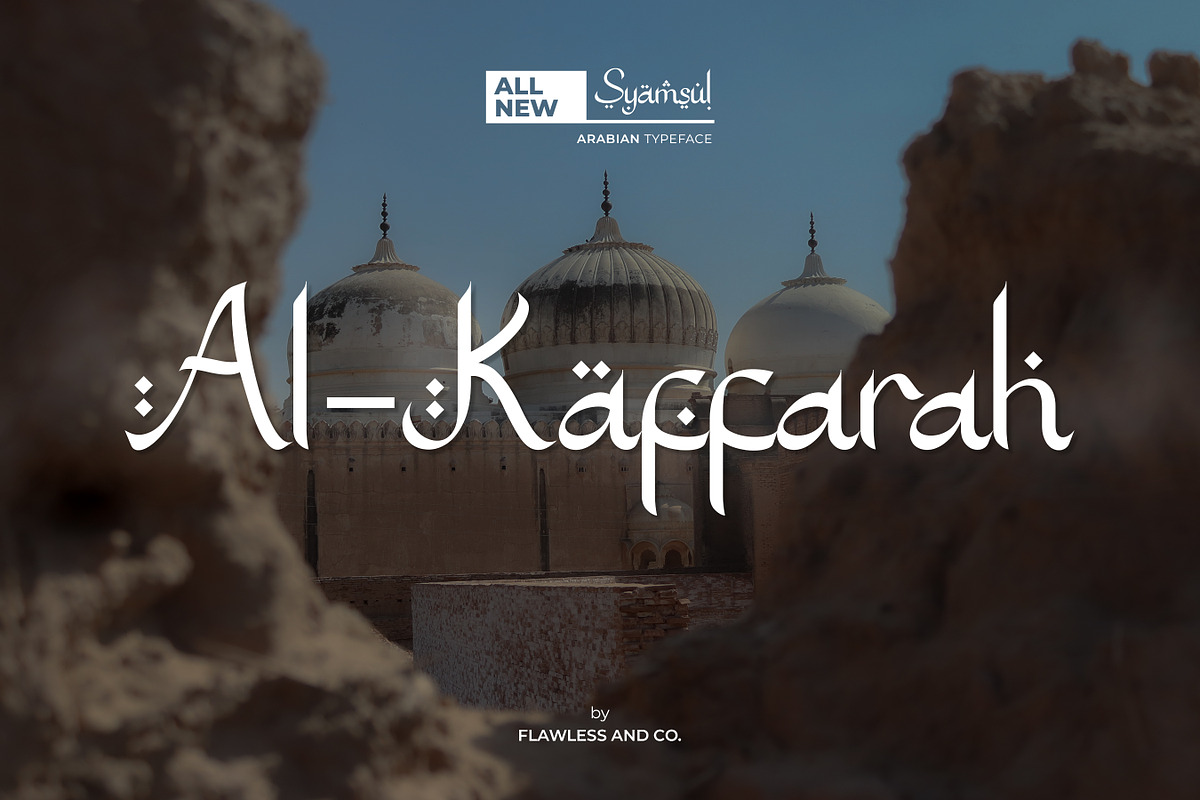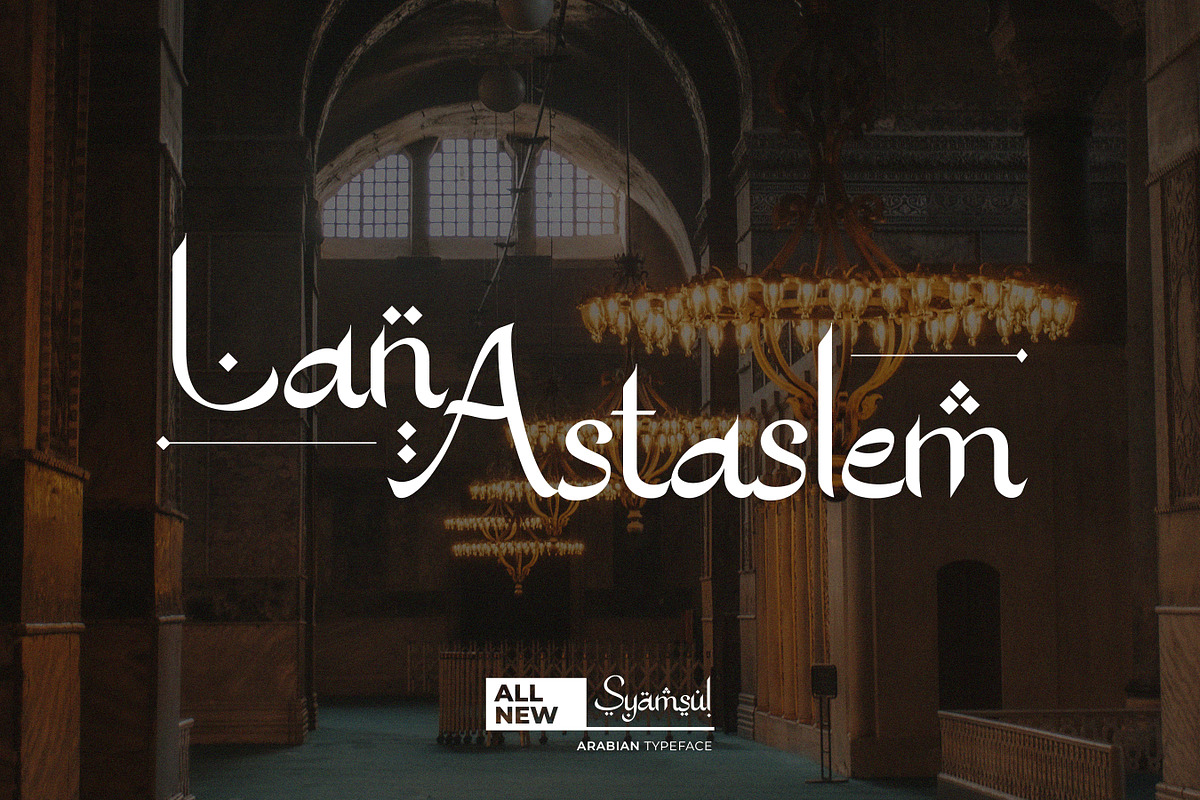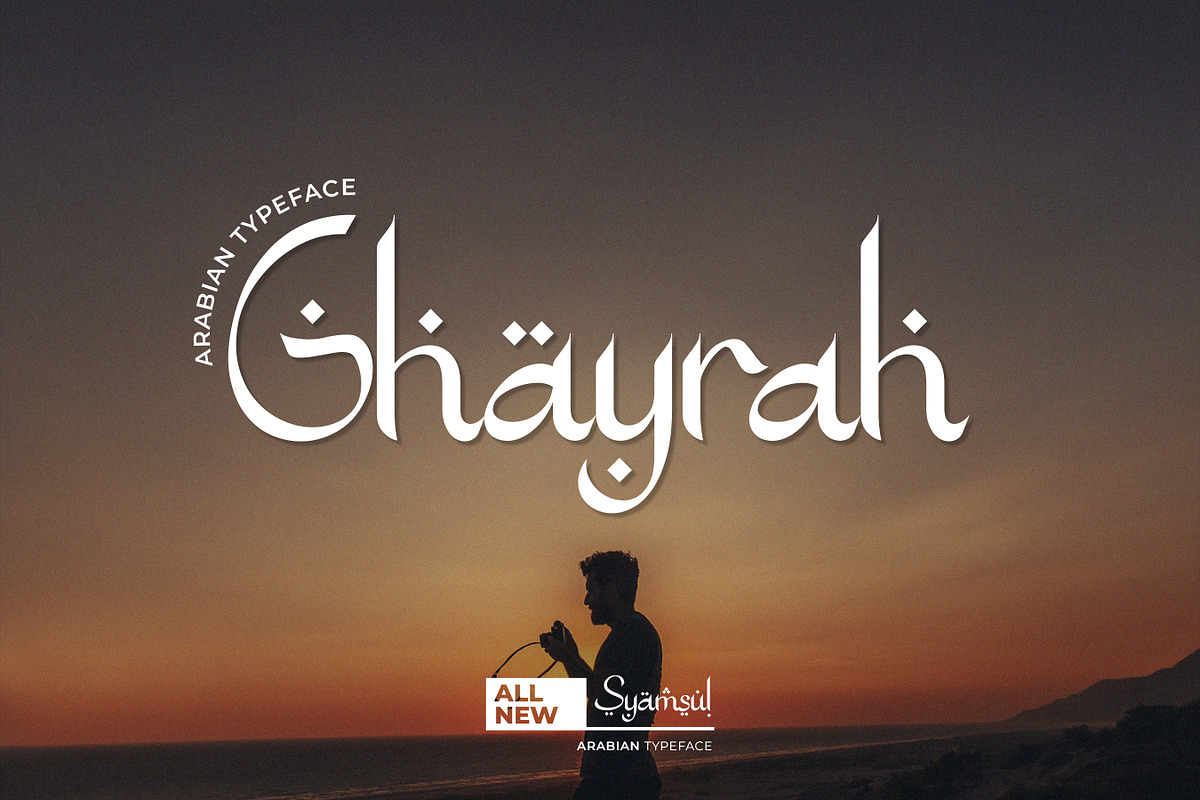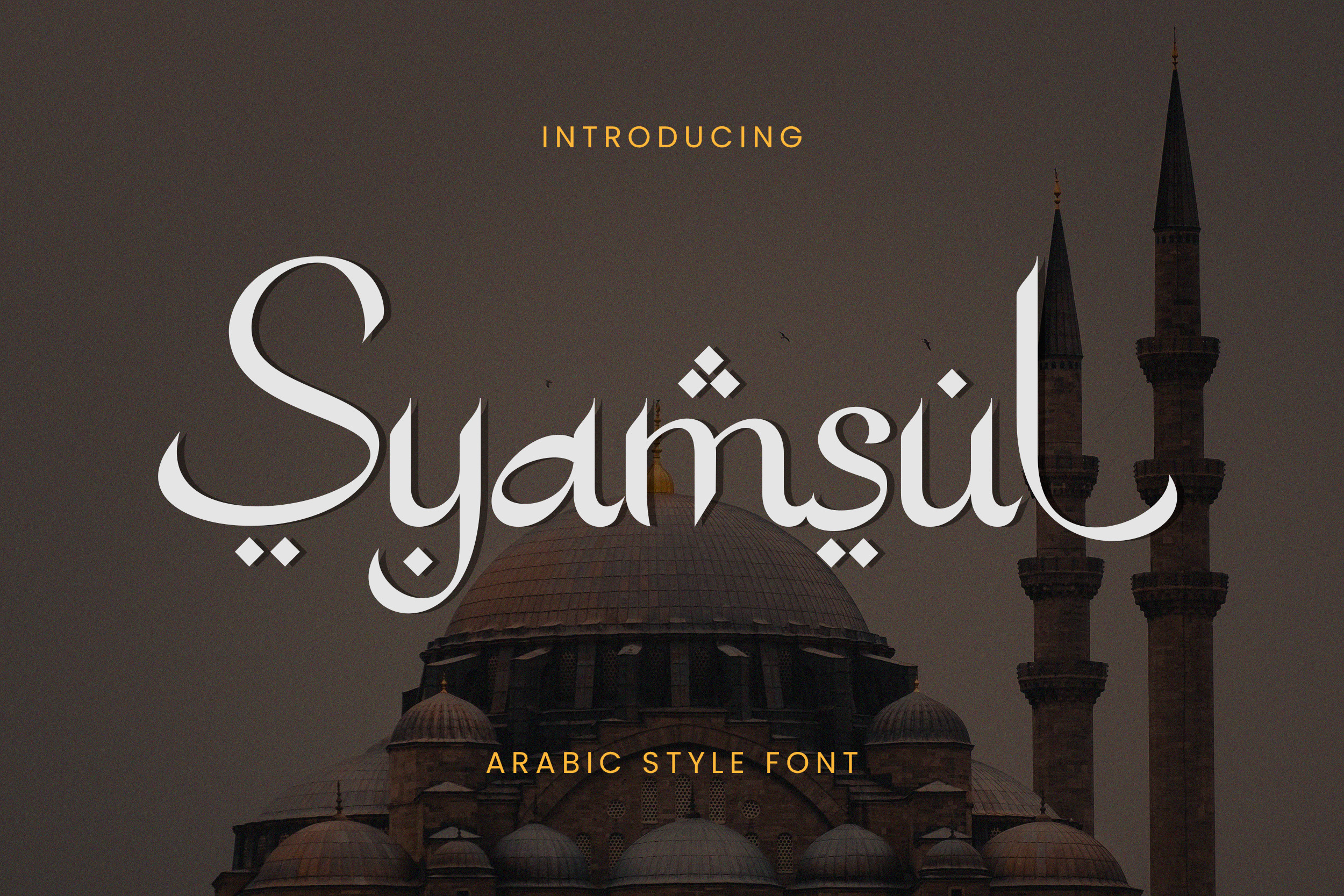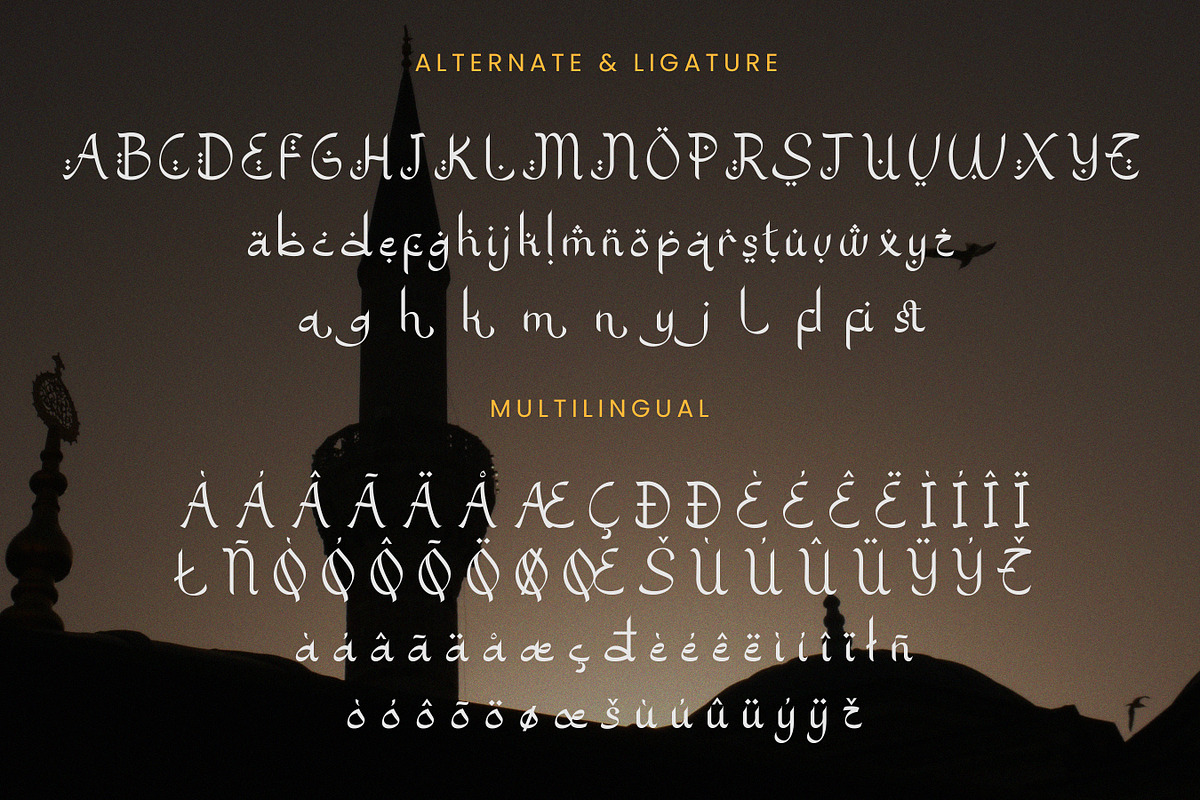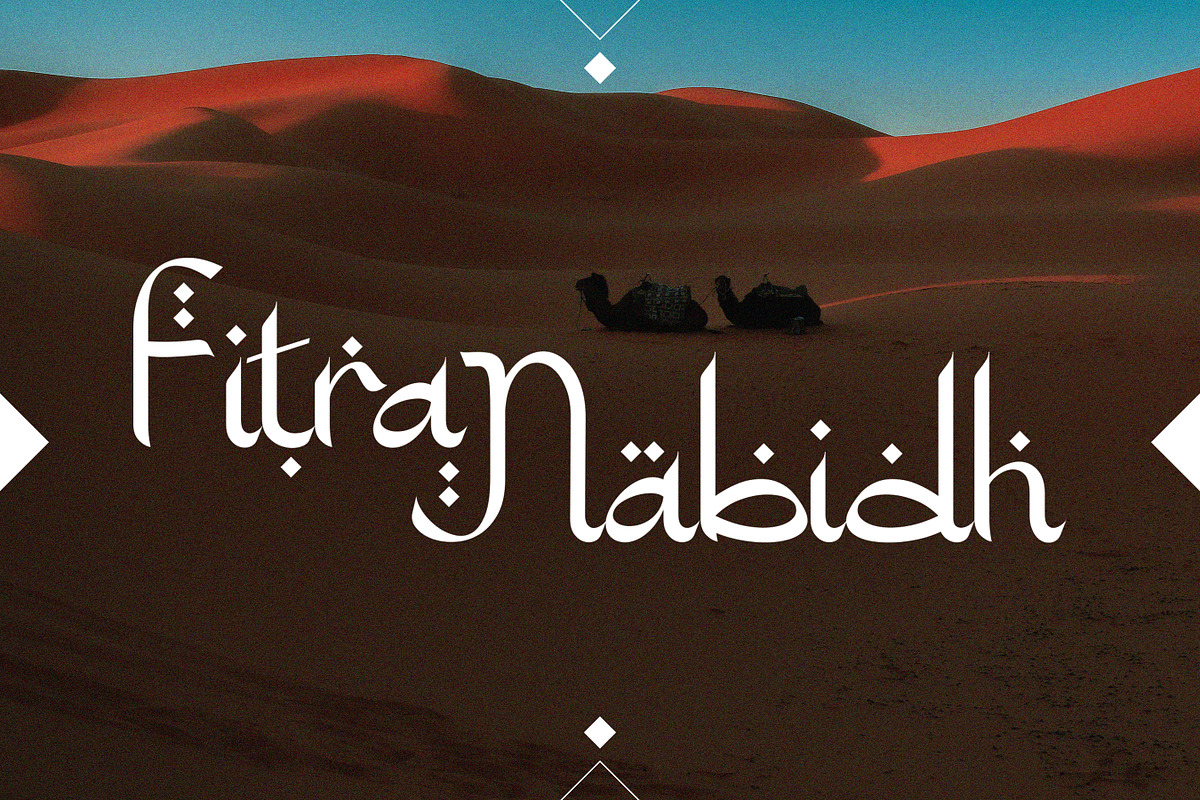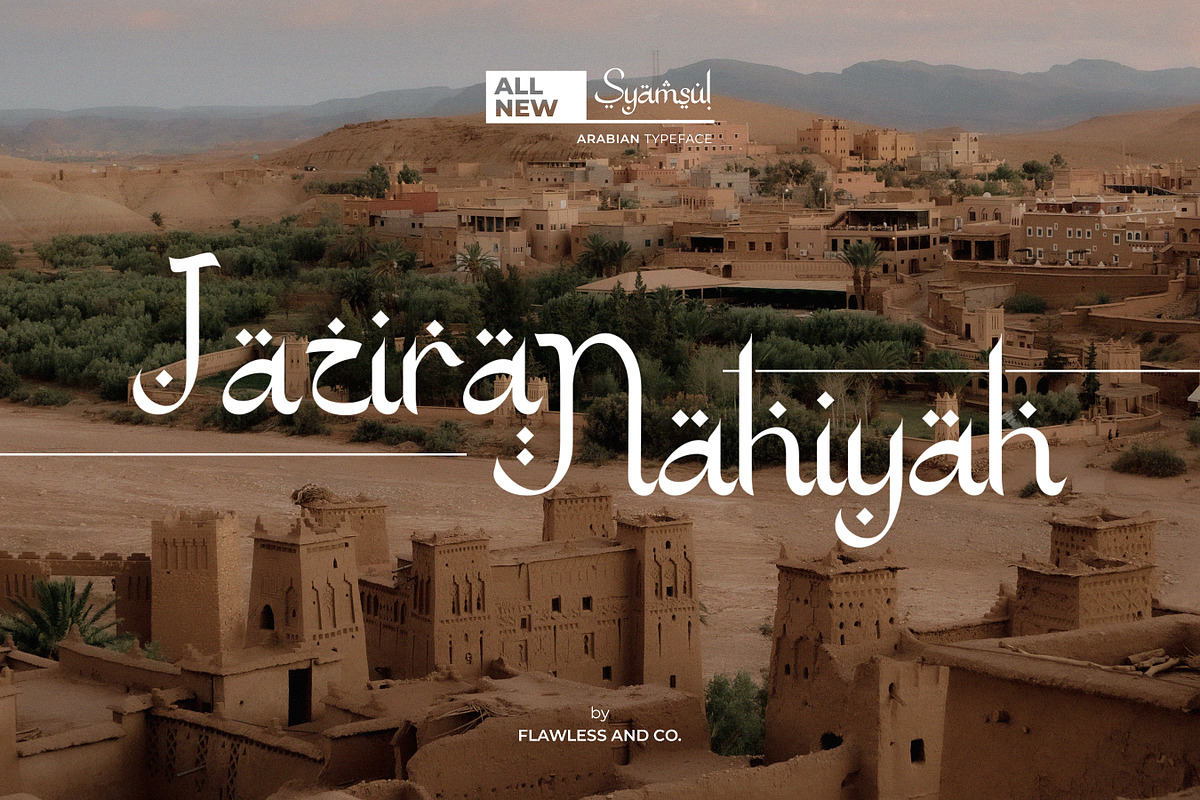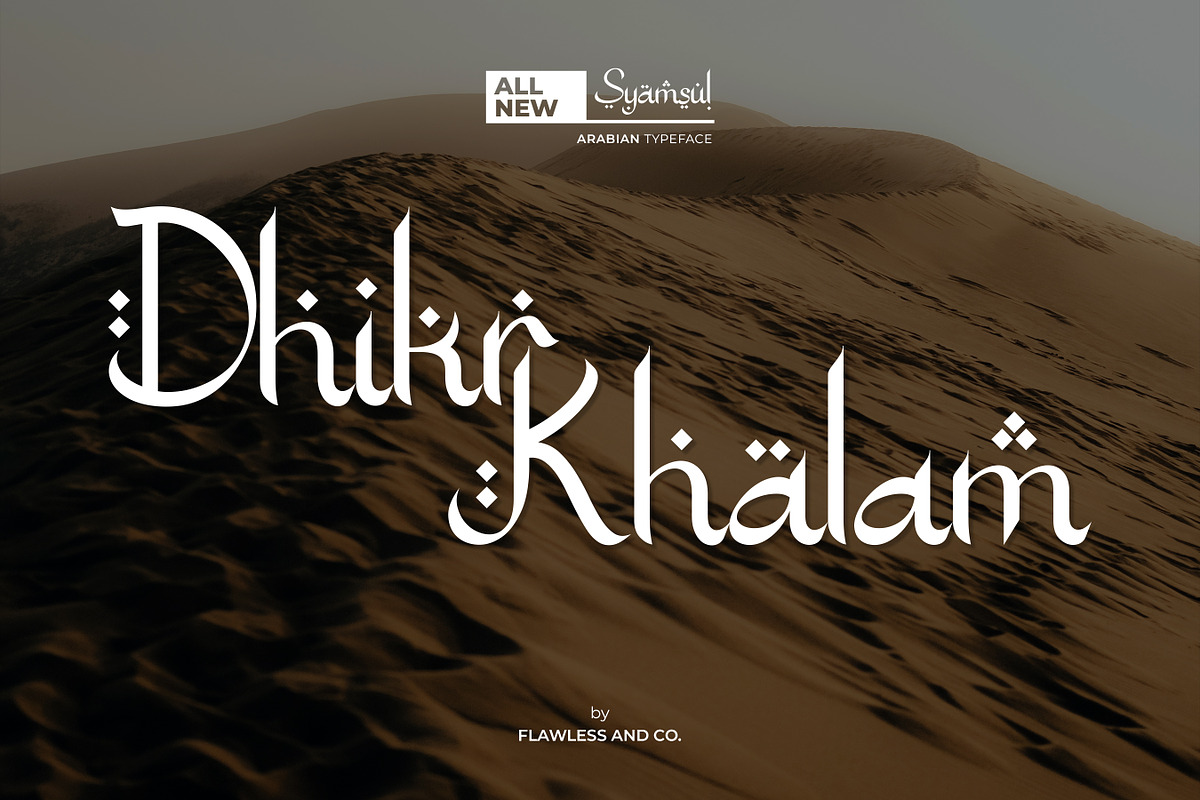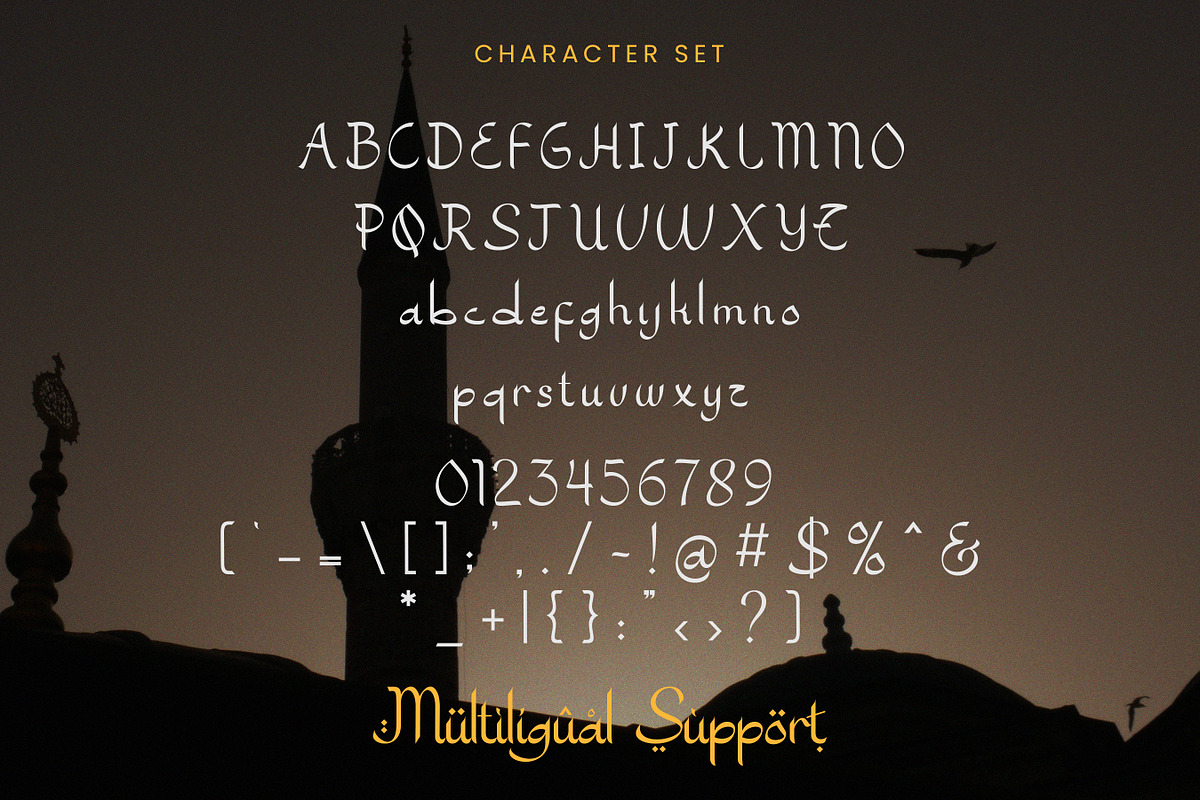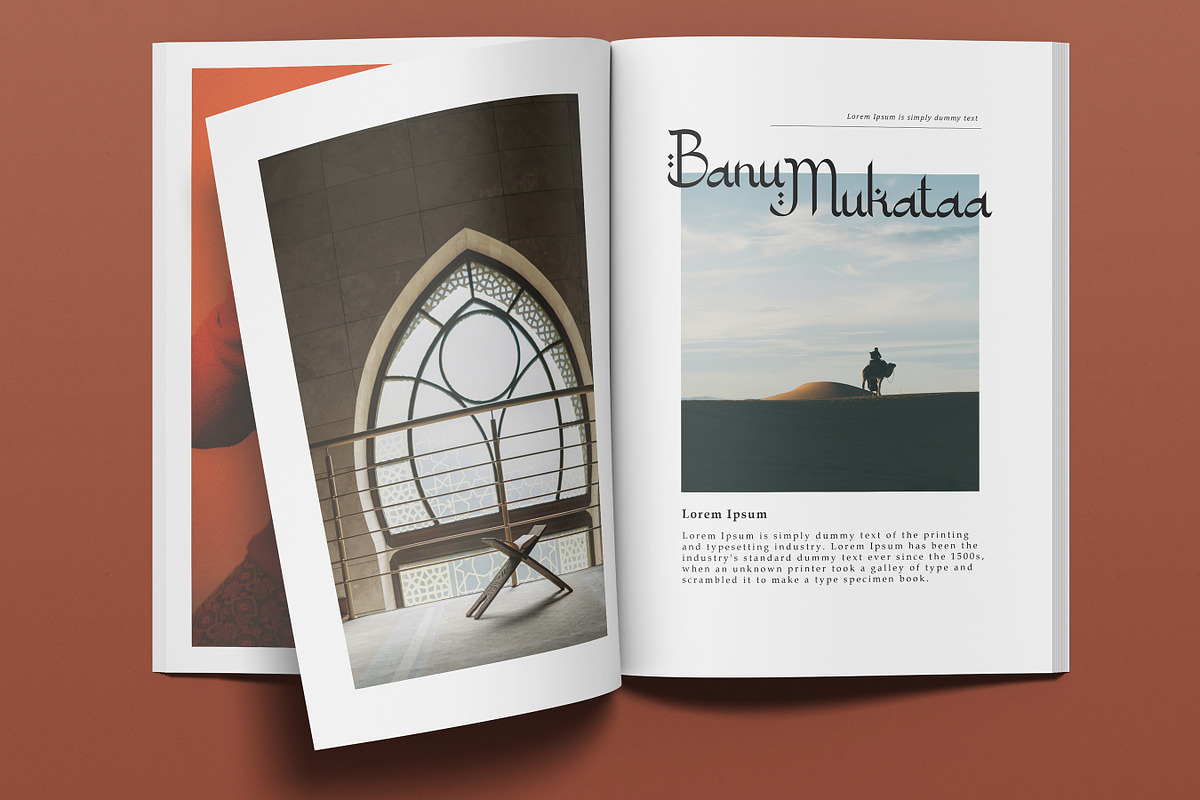
Syamsul - Ramadhan Arabic Font
Syamsul is an Arabic Font, Modern Font with Elegant Style is perfect for branding, logos, invitation, master heads, and more.
Multilingual Uppercase alphabet A-Z Lowercase alphabet a-z Italic alphabet 1-z Alternate Character Numbers 0-9 Some punctuation